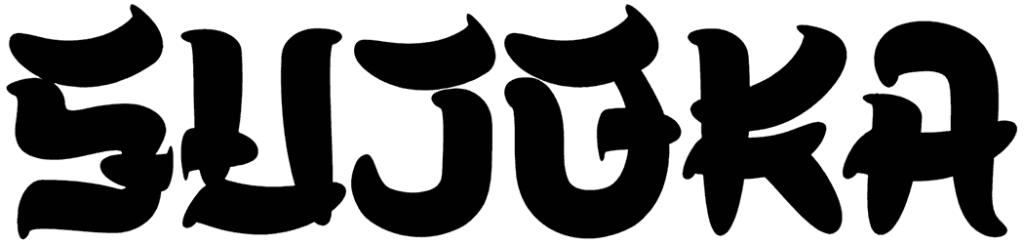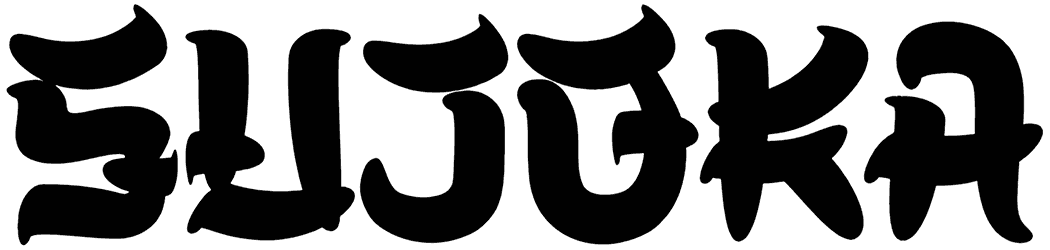
Sujoka Font
The Chinese always find a way to showcase their history in their designs that even catches a foreigner’s eye. This Japanese font has a brush stroke illusion, which we have seen in ninja looks, and makes your words more exciting. The Sujoka font can be used to write Asian movie titles and posters, decorative headlines, product packaging, and event banners. No numbers are included in this collection.